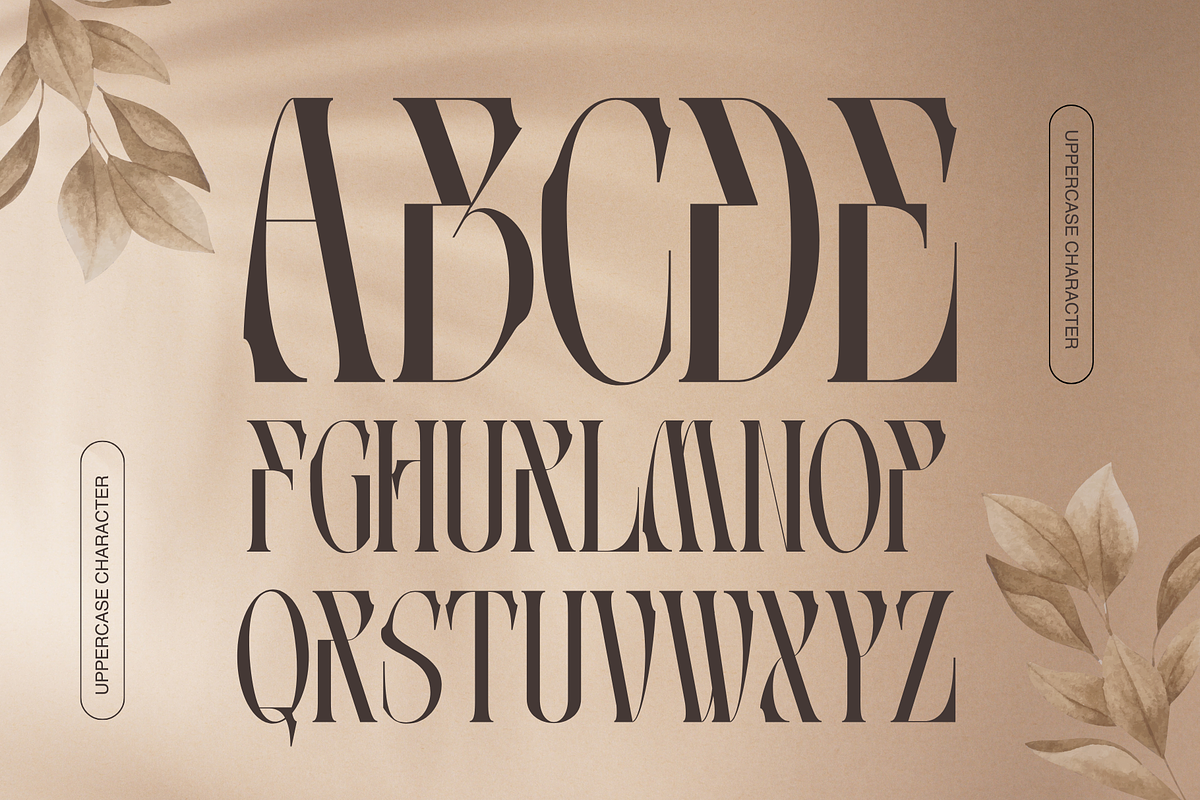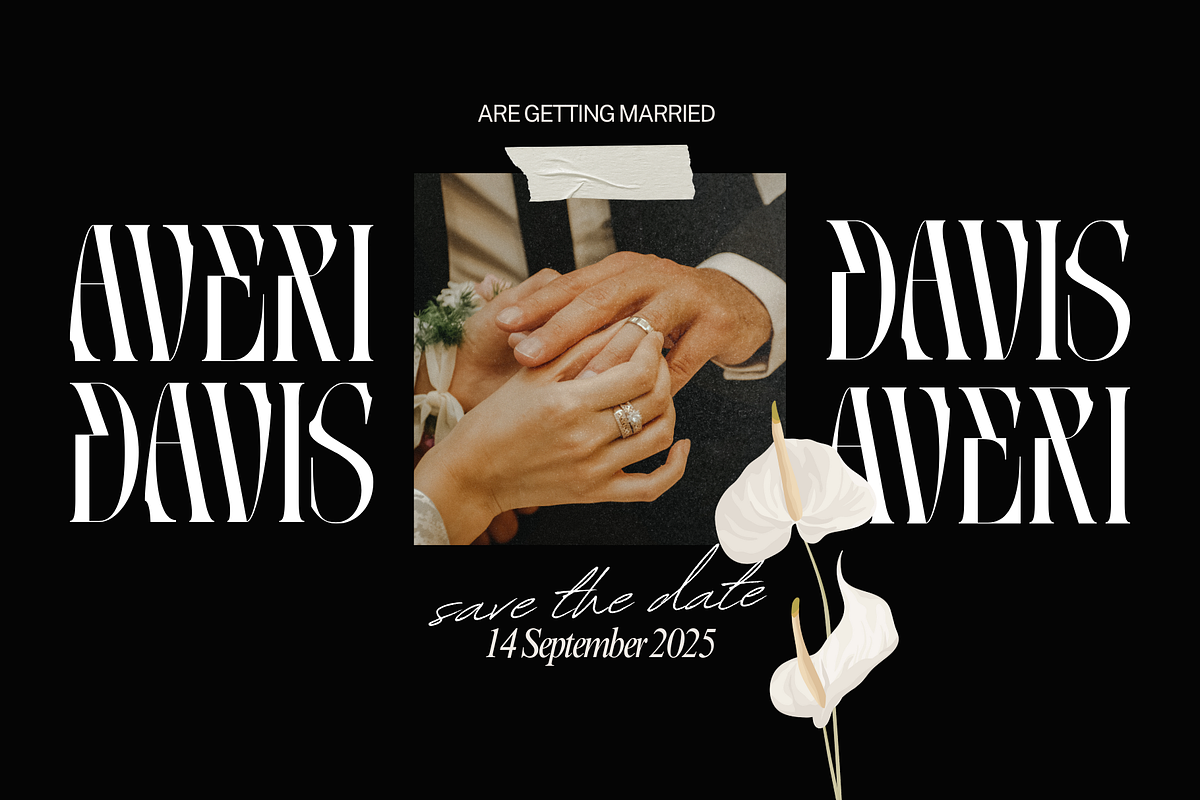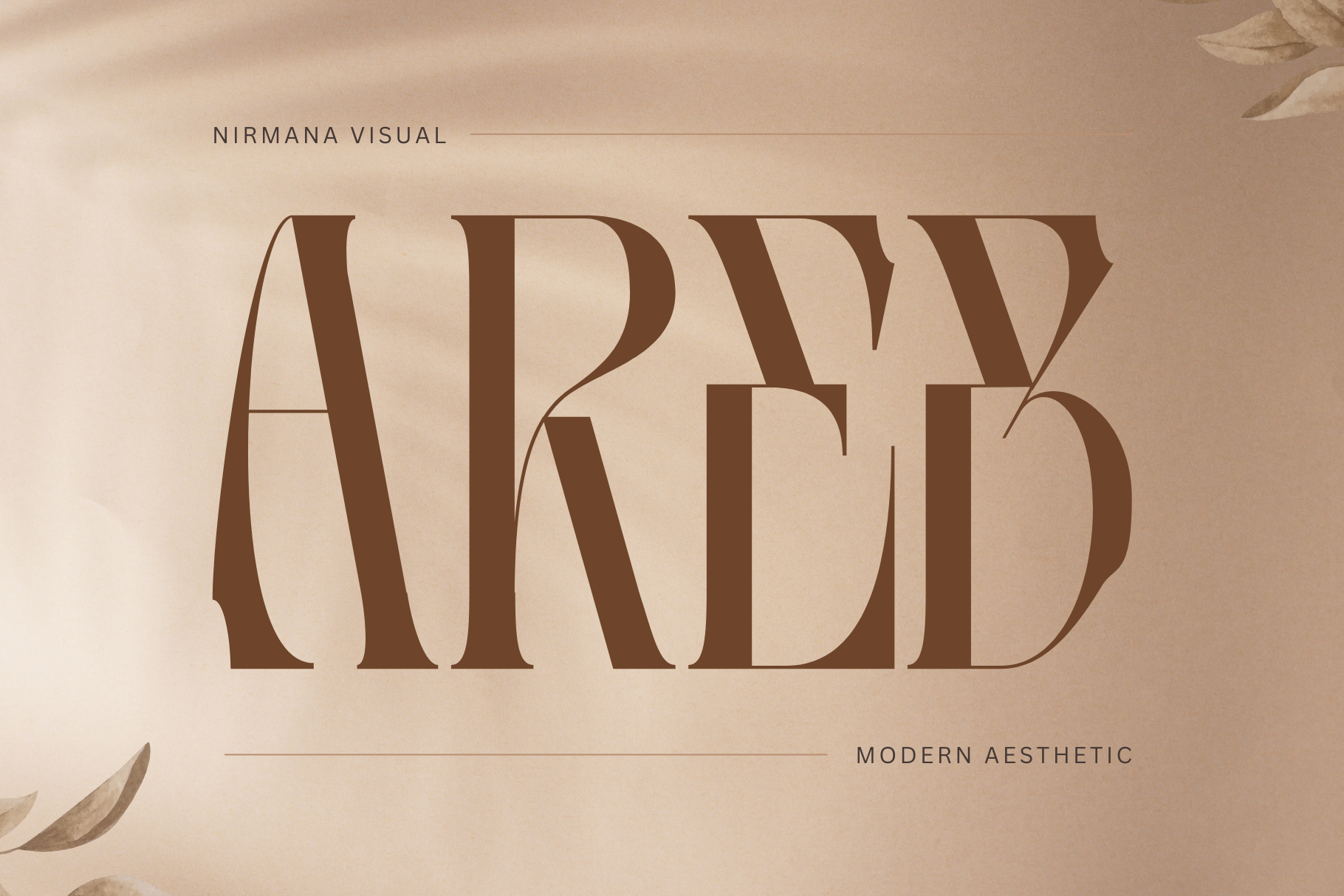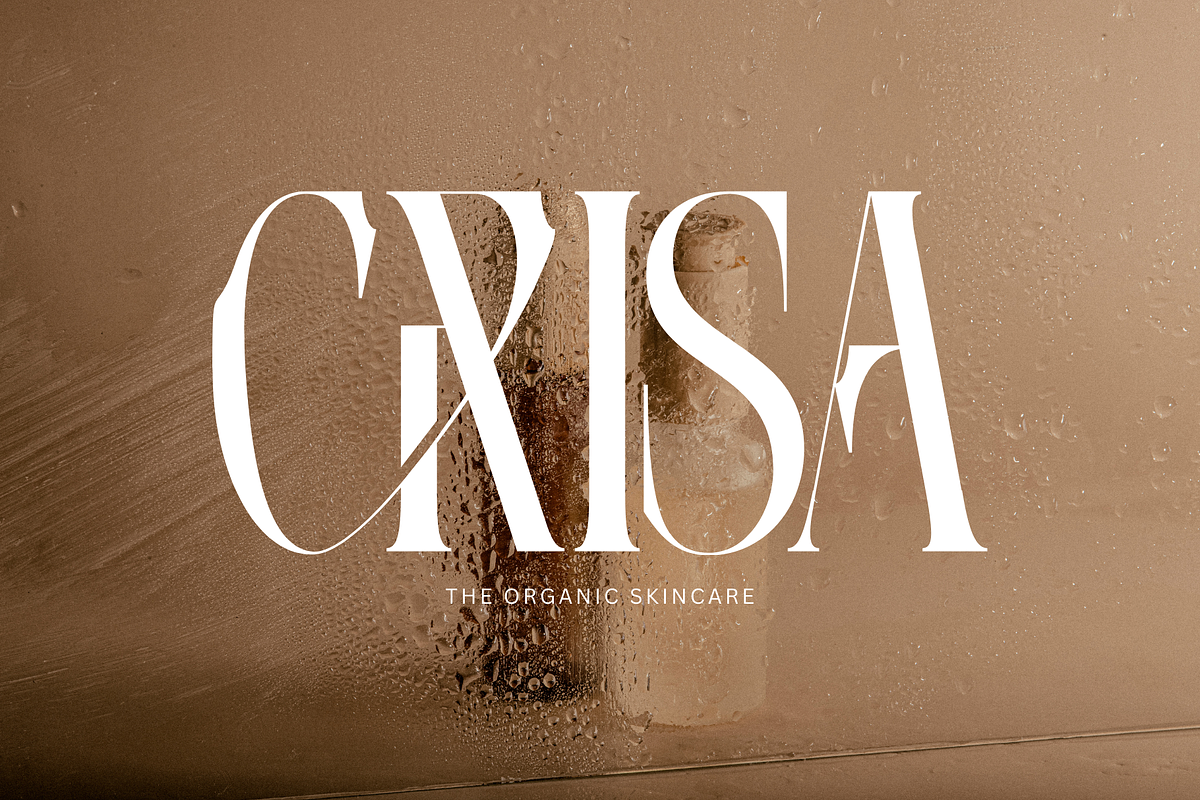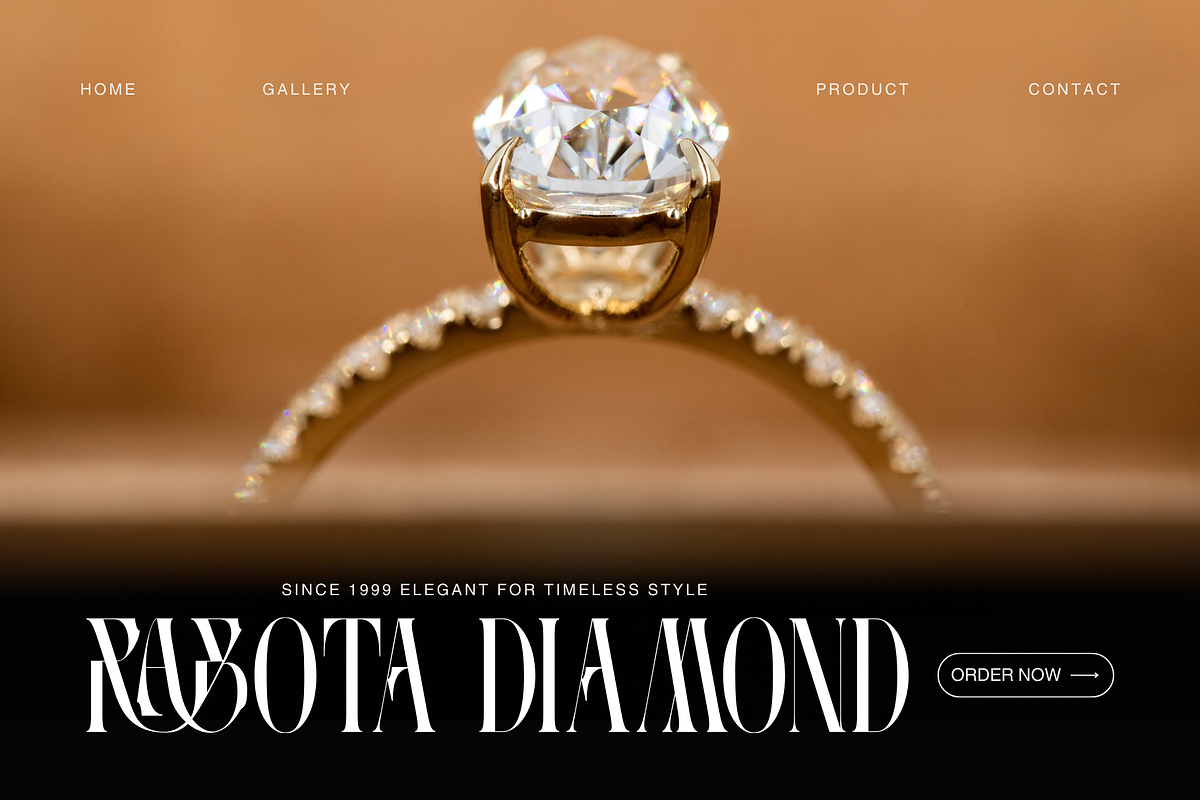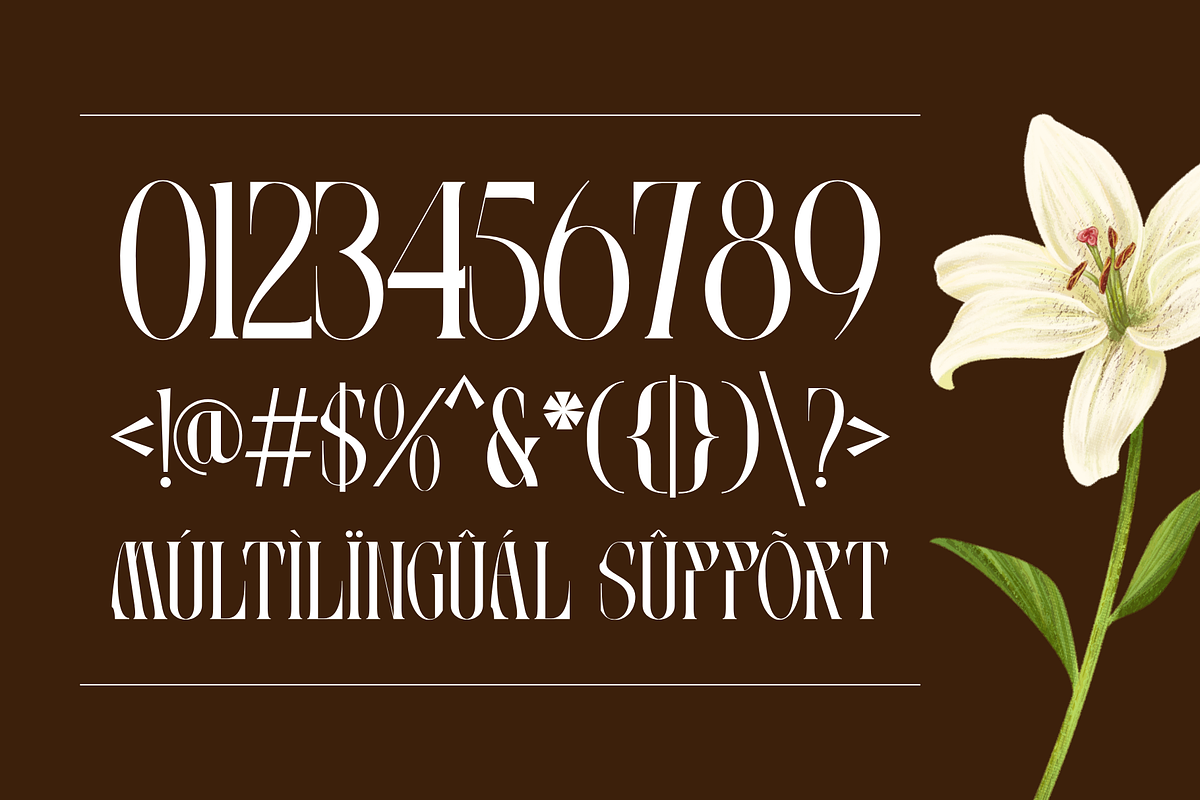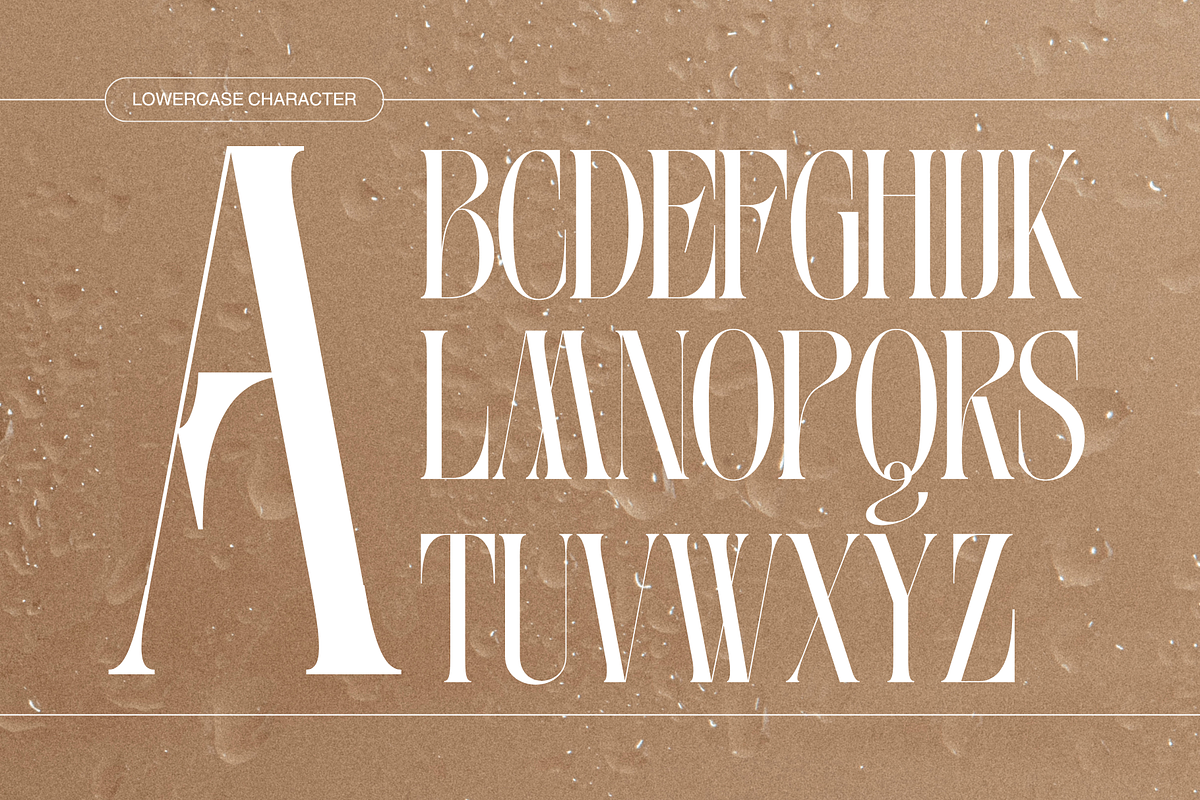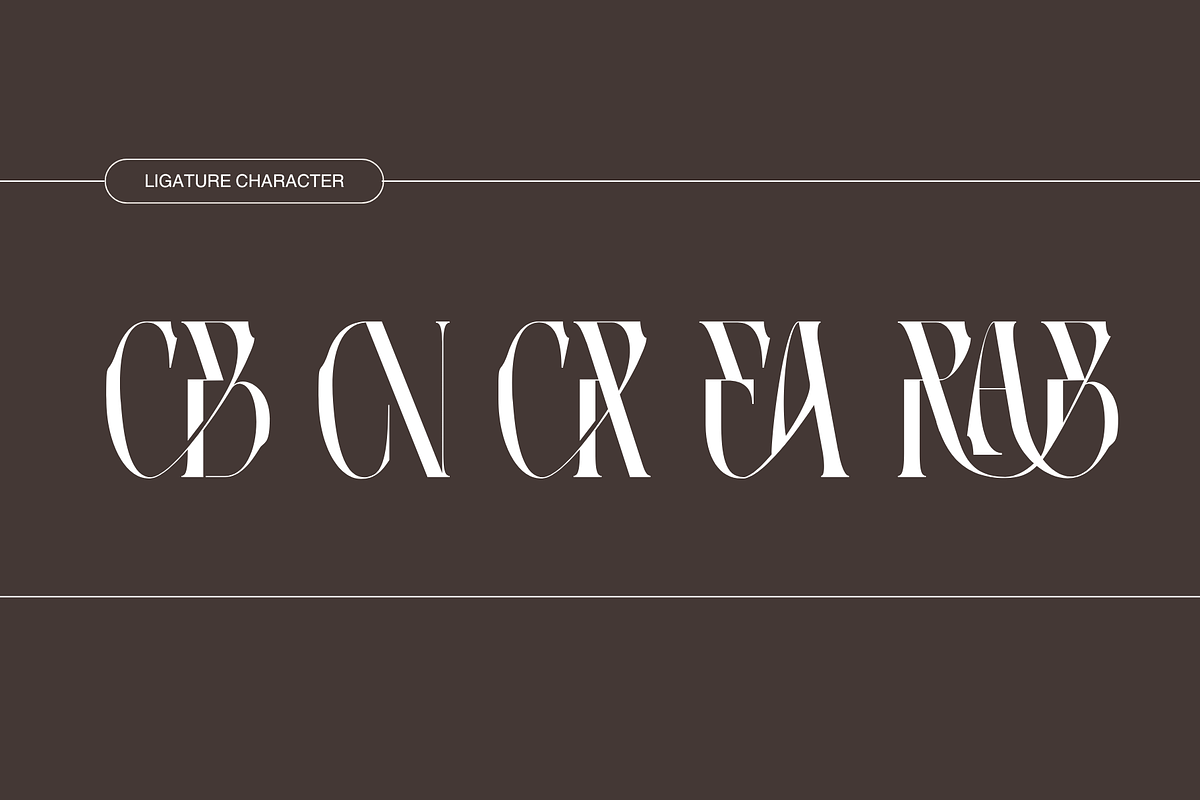
Areb - Branding Logo Font
Areb is a modern aesthetic font that combines minimalism with a smooth, contemporary feel. Its clean, geometric letterforms and balanced proportions make it versatile for a wide range of design applications. The font features subtle curves and sharp edges, creating a perfect harmony between elegance and boldness. Areb is ideal for branding, headlines, social media graphics, and editorial designs, adding a touch of sophistication and style to any project. Perfect for modern, forward-thinking creatives.